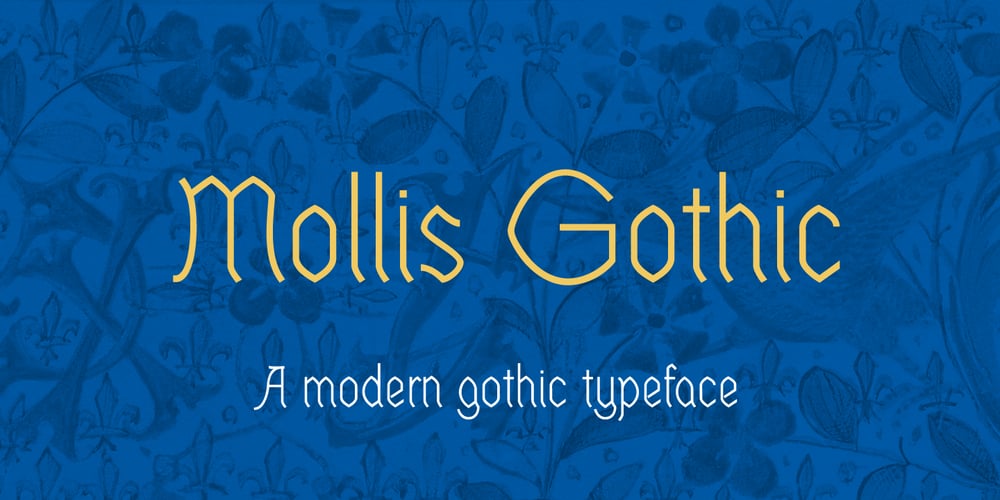
Mollis Gothic Font Family was designed by Quan-gang Li and published by Quatype. Mollis Gothic contains 2 styles and family package options. Mollis Gothic is inspired by medieval gothic calligraphy. The gothic calligraphy is classical and traditional, I want to add something modern to it. So the letters are simplified as lines and without the handwriting feel, just like a sans font. Meanwhile, the gothic calligraphy visual look remained. It expands the usage area because of the modern feel of this font, such as the package, titles, logo, poster design, etc.In September 2021, we created the thin weight. Although Mollis Gothic Thin is from the font family, the kerning set and capital letters’ height are not as same as the regular weight for suiting the thin font’s usage situation.